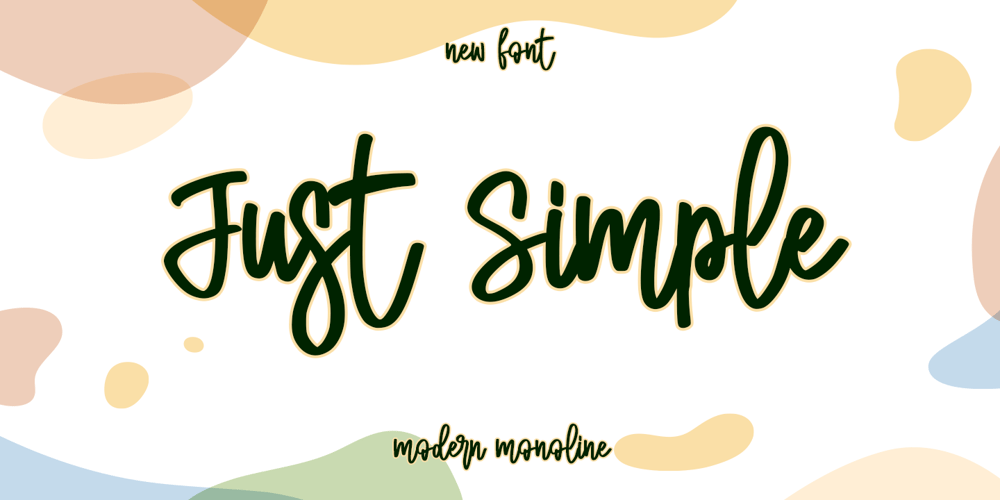
Just Simple Font Family was designed by Stefani Tri Rosa Setiati Christiana and published by Stefani Letter. Just Simple contains 1 styles and family package options. Just Simple is a playful monoline handwritten. It was inspired by a marker pen, and is perfect for logos, t-shirts, branding, prints, and much more!This font is PUA encoded which means you can access all of the cute glyphs with ease! It also features a wealth of special features including ligatures.